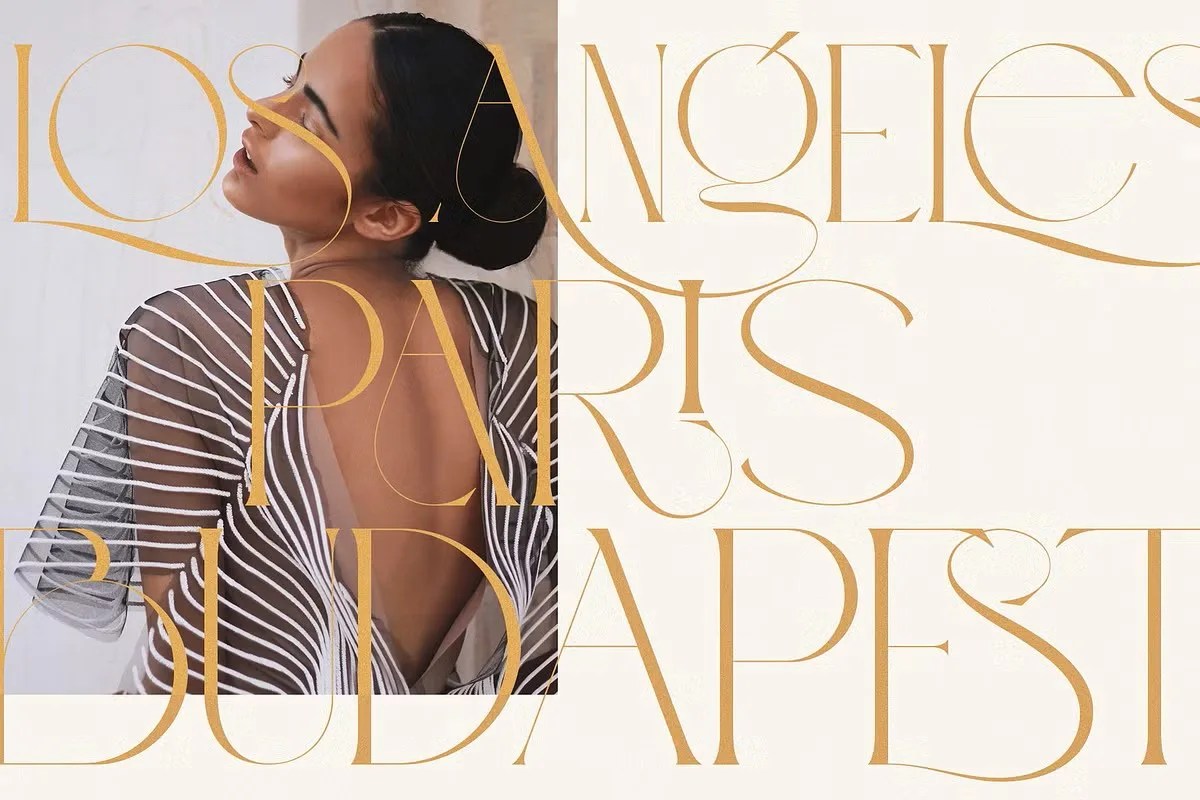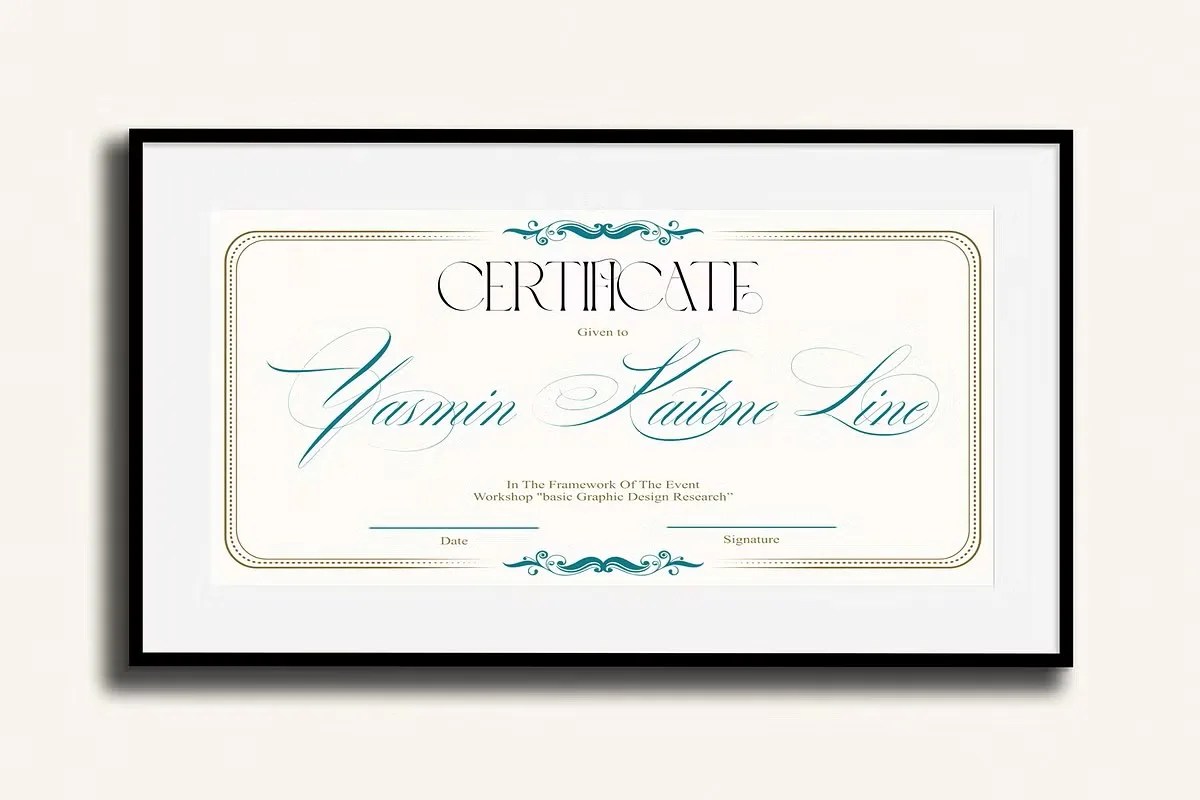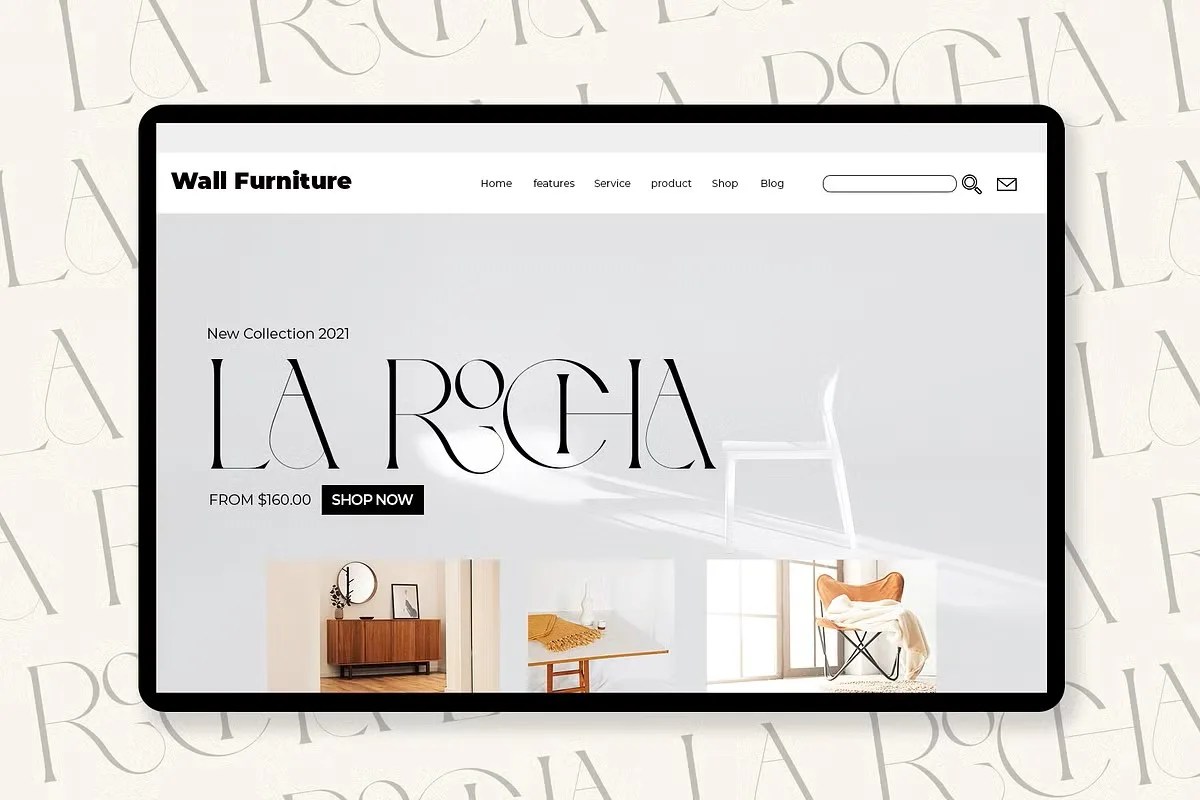
The Blosta Font by Alcode provides graphic designers with an exceptionally refined tool for upscale branding. Instead of settling for generic system fonts, you can instantly inject a profound sense of sophistication into your editorial layouts. Consequently, this elegant serif typeface immediately captivates your target audience, helping readers appreciate the nuanced beauty of your written content. Ultimately, utilizing this premium typographic design significantly enhances your creative portfolio and establishes your reputation as a master of classic aesthetics.
Furthermore, achieving flawless typographic harmony remains the primary objective when you craft luxury brand identities or high-end magazine covers. This specific typeface delivers remarkable visual balance by featuring a distinct contrast between its thick and thin strokes, alongside elegantly sculpted serifs. When you incorporate these classic letterforms into your digital or print mediums, the OTF file naturally elevates your headlines, logos, and short body copy. As a result, viewers easily perceive the luxurious and timeless qualities embedded within your personal artwork. Whether you design bespoke wedding invitations, experimental cosmetic packaging, or sophisticated digital posters, this asset ensures your typographic vision translates perfectly across all platforms.
• Elegant serif letterforms featuring beautiful high-contrast strokes.
• Ideal for showcasing luxury branding, editorial headlines, and bespoke invitations.
• Expertly mapped kerning pairs ensuring a smooth and readable typographic flow.
• Crisp, high-fidelity vector outlines perfect for both digital screens and physical print.
• Exceptional versatility when paired with modern serif typefaces.
• Distinctive classic aesthetics that immediately elevate any graphic design composition.
Blosta Font